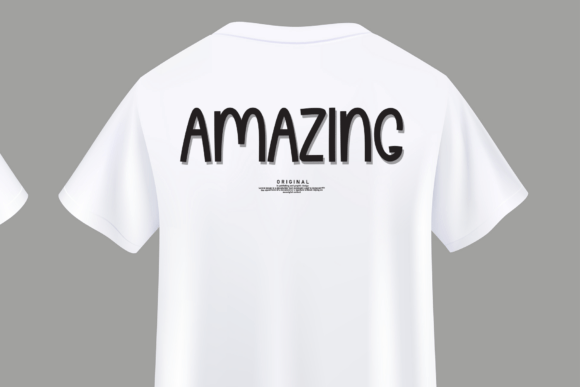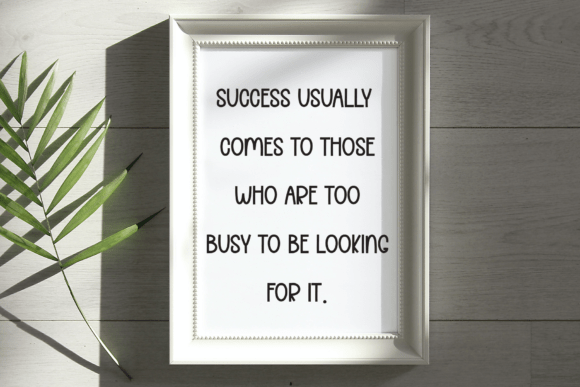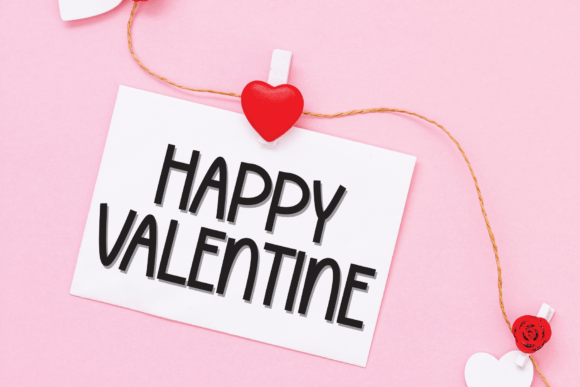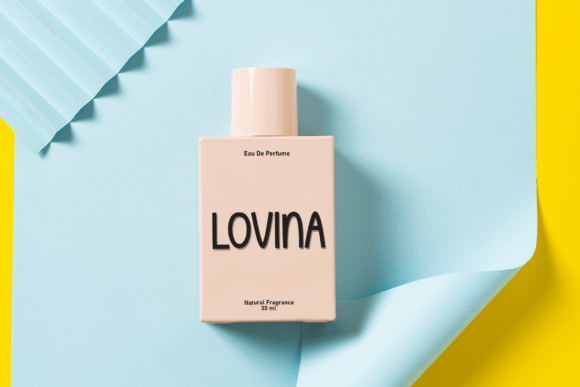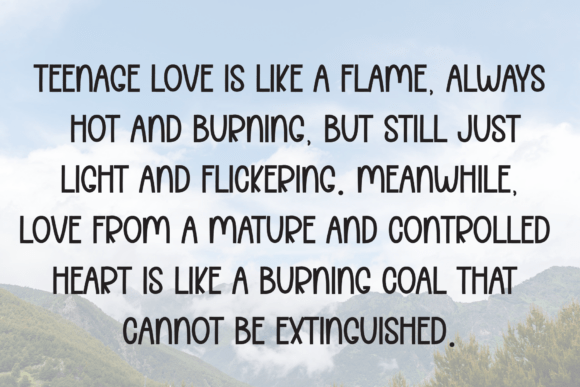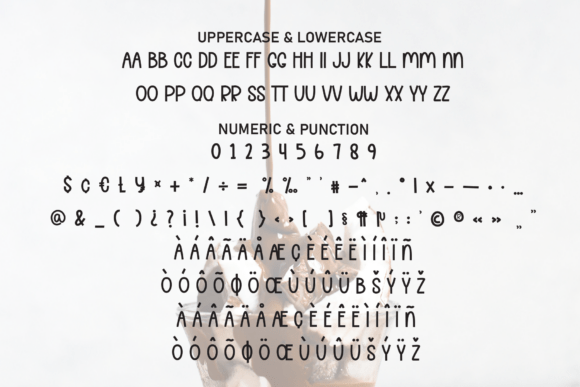
Adding a Pinch of Whimsy to Your Designs
You know that moment when you’re brainstorming ideas for a special project, and suddenly, a burst of inspiration hits you? Maybe it’s a wedding invitation that needs a dash of romance or a greeting card that requires a pinch of playfulness. Whatever the project, I’m here to share with you a secret ingredient that will elevate your designs to the next level: Delicious Font.
This adorably whimsical handcrafted display font is the perfect addition to your design toolkit. With its fun, friendly character, it’s an outstanding choice for crafting enchanting wedding invitations, heartfelt greeting cards, and so much more. Whether you’re a seasoned designer or a creative enthusiast, the Delicious Font will help you unleash your imagination and add a sprightly flair to your creations.
Delicious Font Key Features
- Font Family: Delicious Font comes in 6 different font styles – Delicious Light, Delicious Regular, Delicious Medium, Delicious Bold, Delicious Extra Bold, and Delicious Black.
- Character Set: Delicious Font supports a wide range of languages, including Latin, Cyrillic, and Greek alphabets, making it suitable for global applications.
- Unique Characteristics: The font features a unique blend of modern and vintage elements, with distinctive flair and personality that sets it apart from other fonts.
Delicious Font Review
As a designer, I was excited to try out the “Delicious Font” and see if it lived up to its name. Here’s my honest review:
- ✨ Friendly and approachable feel: The Delicious Font has a warm and inviting tone that’s perfect for food, cooking, and lifestyle brands.
- ✨ Great for headlines: The font’s bold and playful personality makes it ideal for grabbing attention and creating eye-catching headlines.
- ✨ Versatile: Delicious Font is available in various weights and styles, making it suitable for a wide range of design projects.
- ⚠️ Limited legibility: At smaller font sizes, the Delicious Font can become difficult to read, which may be a concern for body text.
- ⚠️ Not ideal for technical writing: The font’s playful nature may not be suitable for technical or instructional content, where clarity is paramount.
I’d give the Delicious Font 4 out of 5 stars. While it excels at creating a friendly and approachable atmosphere, its limitations in legibility and suitability for technical content hold it back from being a go-to font for all design projects.
Getting the Most Out of Delicious Font
Some tips for getting the most out of Delicious Font include:
– Using it in combination with other fonts to create a unique visual style.
– Experimenting with different font sizes and colors to achieve the desired effect.
– Using the font in headings and titles to create visual hierarchy.
Delicious Font is commonly used in creative and food-related projects, such as:
– Menu design
– Recipe books
– Food blog posts
Alternatives to Delicious Font
Playfair Display is a luxurious and elegant script font perfect for adding a touch of sophistication to your designs. It features intricate details and connections between letters, making it ideal for use in branding, invitations, and other high-end materials.
Compared to Delicious Font, Playfair Display has a more ornate and refined feel, making it suitable for projects where you want to convey luxury and elegance.
Great Vibes is a modern and elegant script font that works well for a variety of design projects. It features a flowing and connected feel, making it perfect for use in branding, signage, and other materials where you want to convey a sense of movement and energy.
Compared to Delicious Font, Great Vibes has a more modern and dynamic feel, making it suitable for projects where you want to convey a sense of excitement and energy.
Can I customize the Delicious Font to fit my design needs?
Yes, the Delicious Font is fully editable in design applications that support OpenType features, such as Adobe Illustrator, InDesign, and Photoshop. You can access advanced typographic features, including ligatures, swashes, and stylistic sets, to create unique and customized typography.
For optimal readability, we recommend using the Delicious Font at a minimum size of 12pt and a line height of 1.5-2 times the font size. This will ensure that the text is clear and easy to read, especially in digital formats.